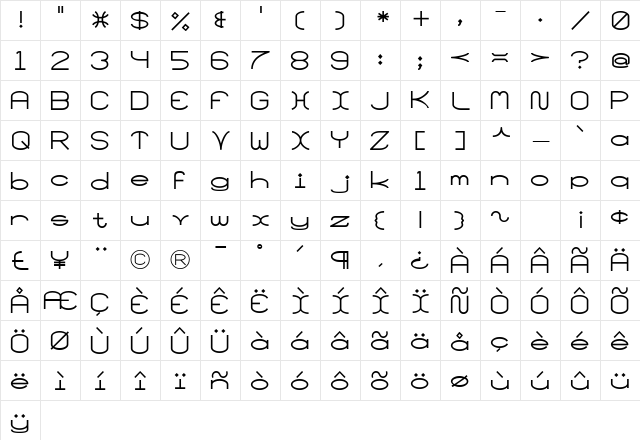
Santa Moncia MF Regular
Design Context for Santa Moncia MF Typeface
Santa Moncia MF takes a measured approach to typography — its balanced proportions and neutral character make it a reliable workhorse for both digital and print work.